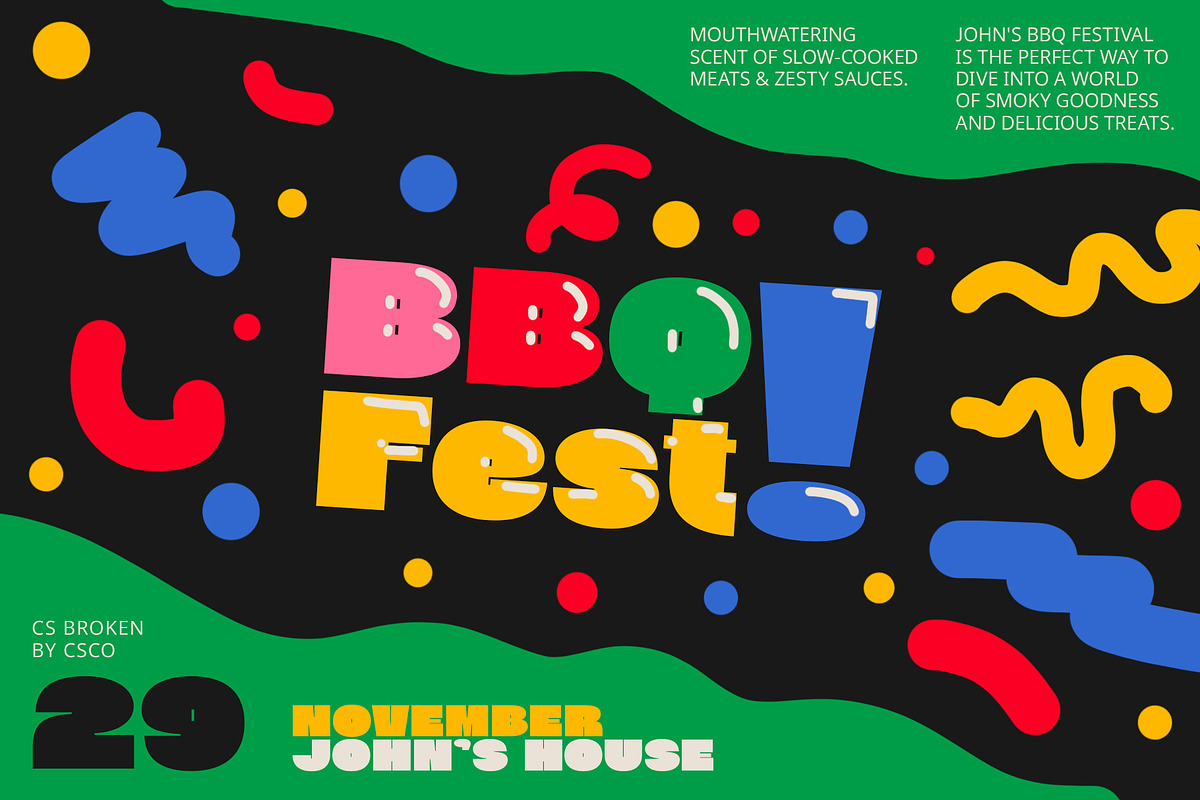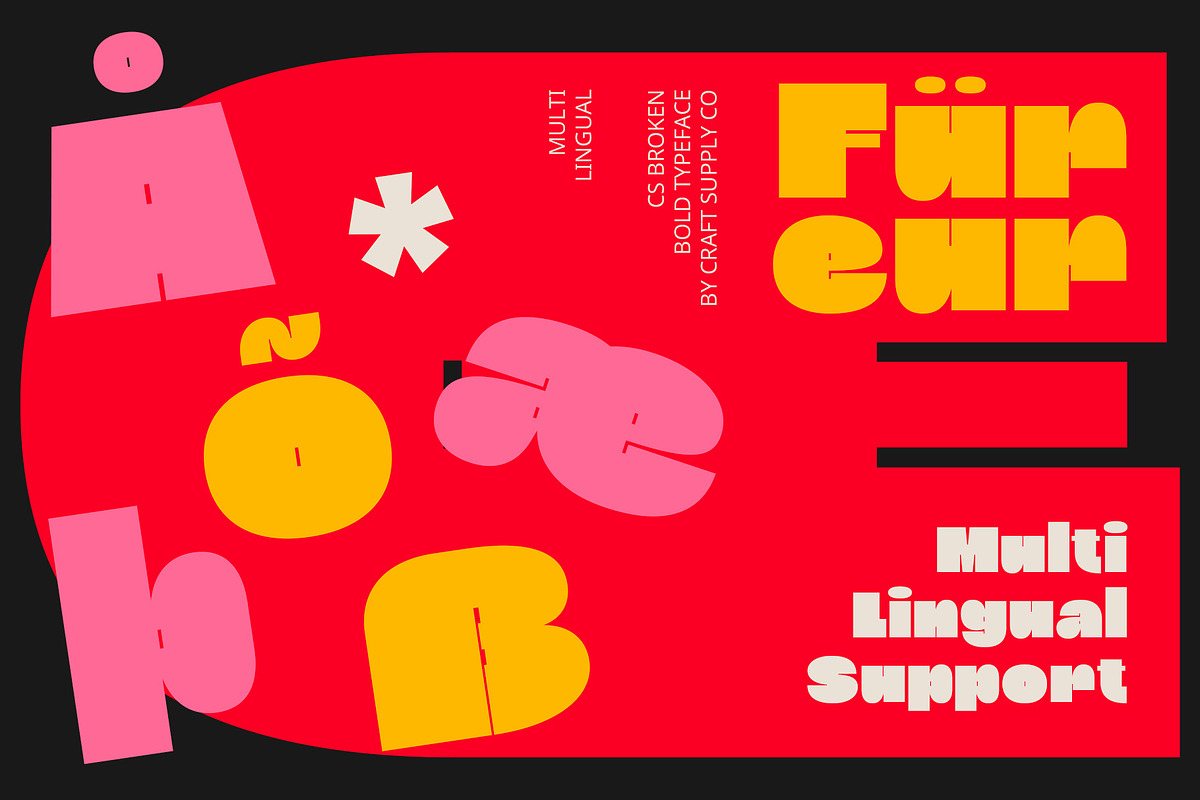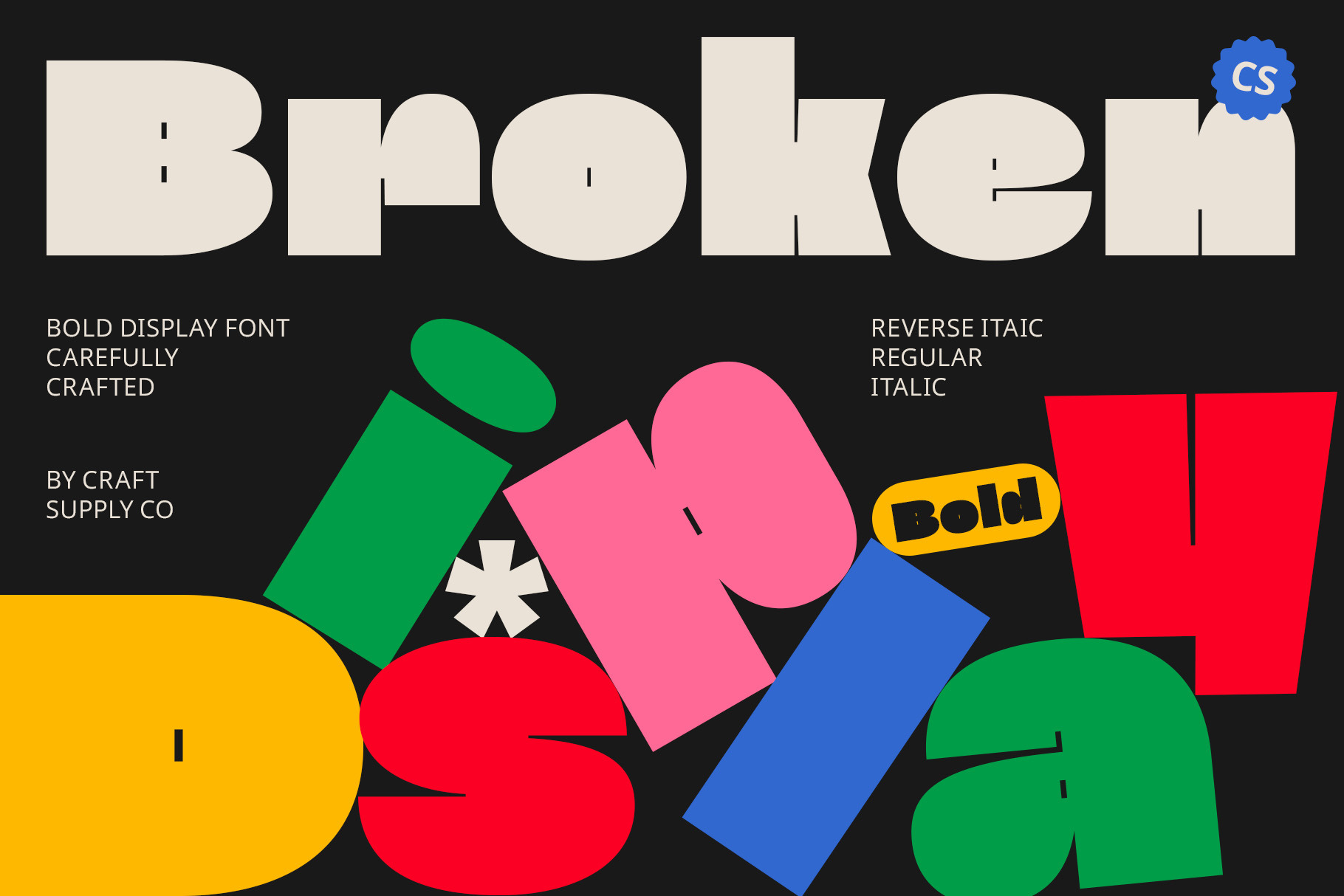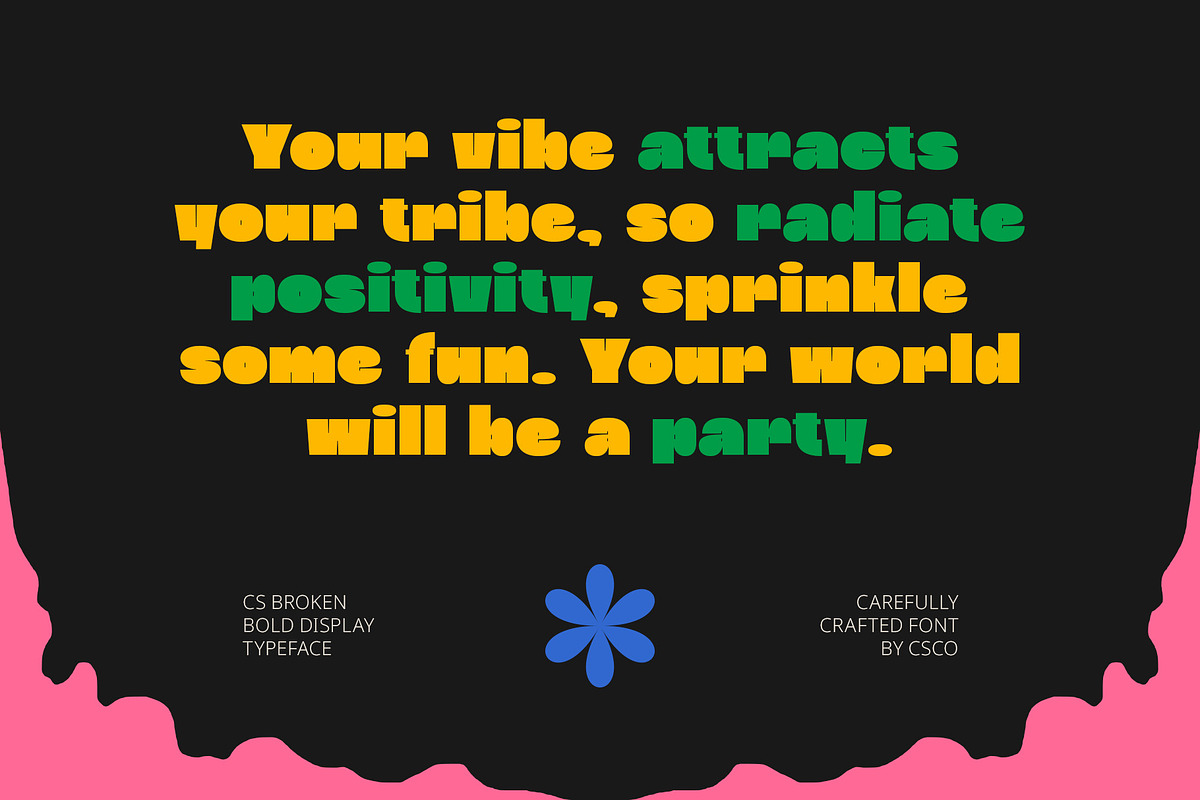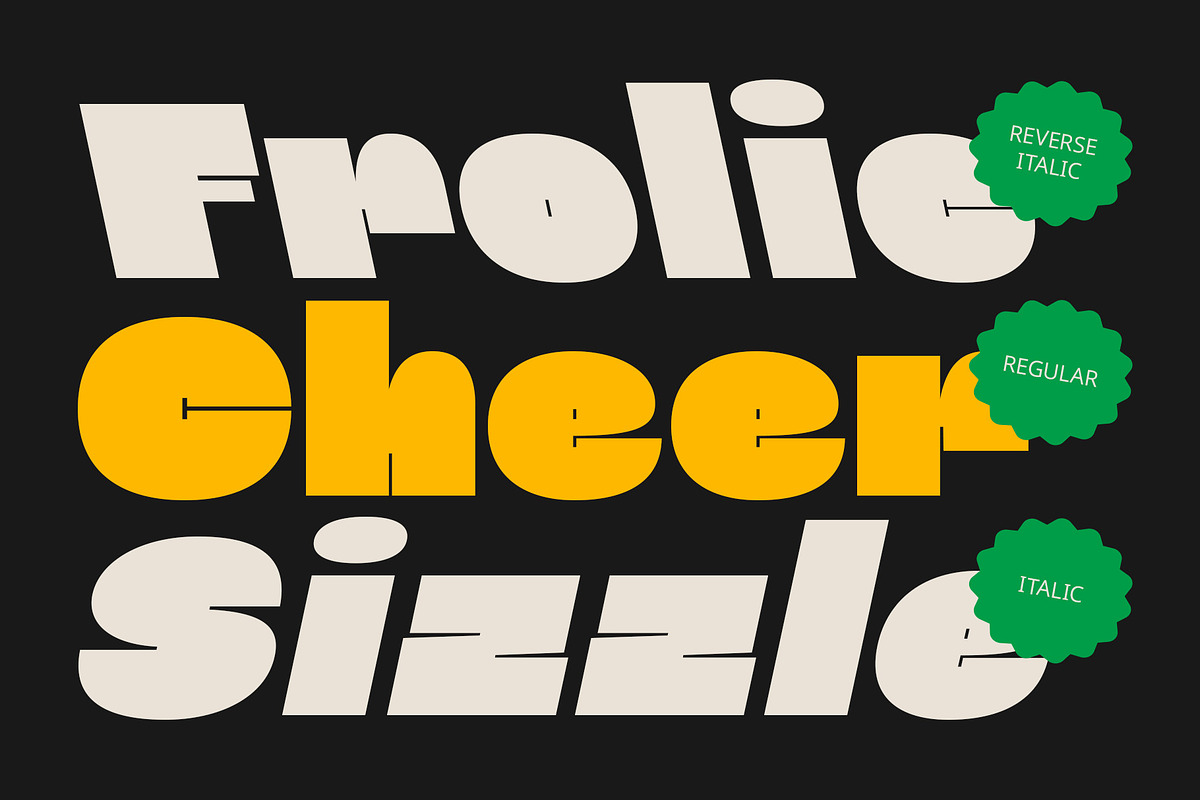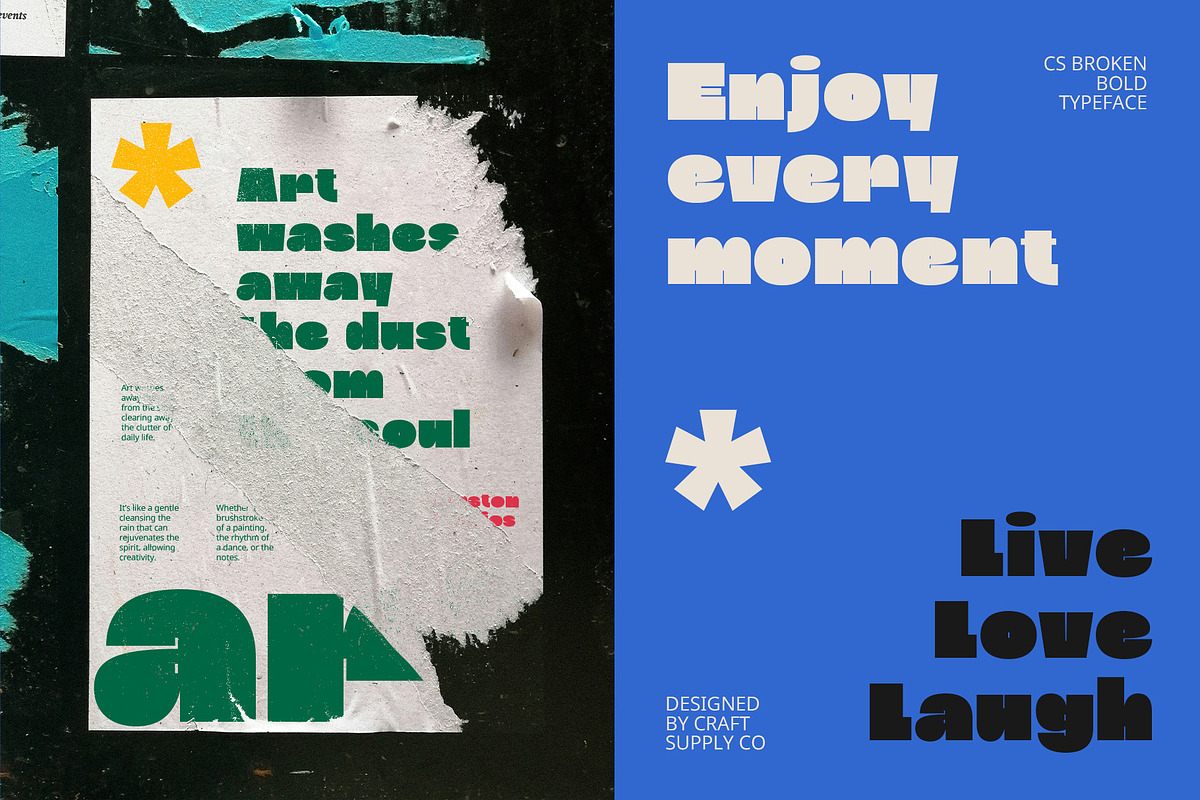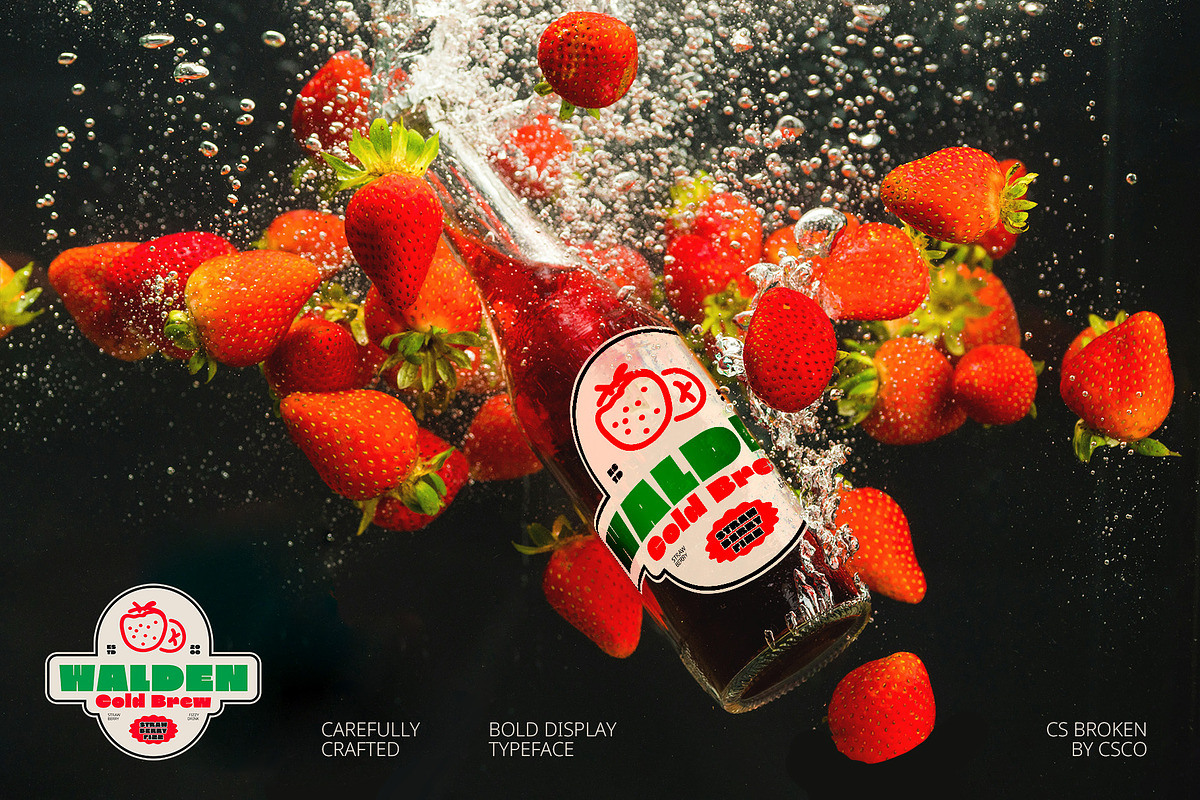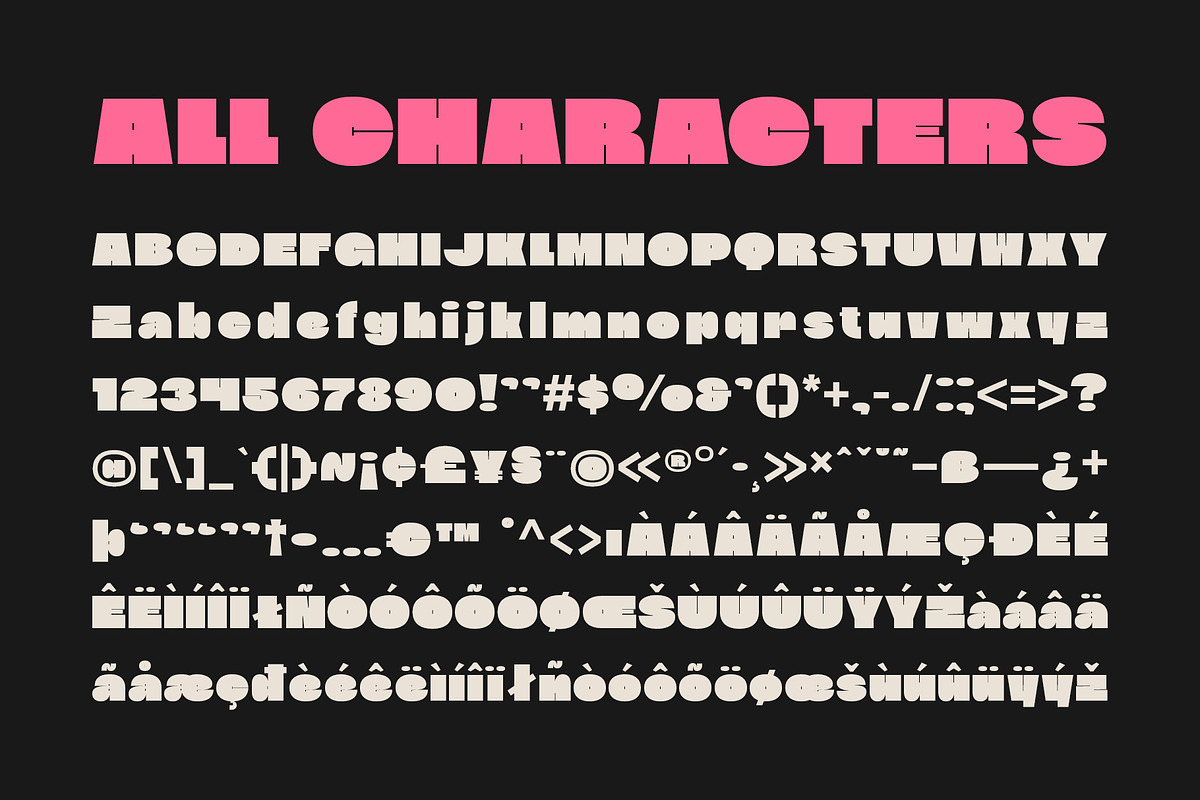
CS Broken – Bold Font
CS Broken – Bold Font: Playful Boldness with a Fun Twist
Cheerful Balloon-Like Design CS Broken – Bold Font is a display typeface with a distinctive balloon-like design, characterized by its bold weight and rounded, inflated shapes. This playful and lively design exudes a cute, funky, and cheerful vibe, making it perfect for projects that aim to bring joy and whimsy to the forefront.
Vibrant and Fun Embrace the fun and vibrant personality of CS Broken Font. Its bold, rounded forms create a dynamic and engaging impression, ideal for children’s materials, party invitations, and any design needing a burst of energy and excitement. The font’s cheerful character ensures it stands out and adds a playful touch to your work.
Versatile for Creative Projects CS Broken Font is versatile enough to enhance a variety of creative projects. Whether you’re designing vibrant branding, eye-catching event materials, or playful educational content, its bold and whimsical design brings a delightful and energetic presence to your designs.
Elevate Your Creativity Infuse your project with the lively charm of this display font. Its unique, balloon-like design and bold weight ensure a fun, memorable impact, perfect for any project where a touch of whimsy and playfulness is desired.
- CS Broken Regular
- CS Broken Italic
- CS Broken Reverse Italic